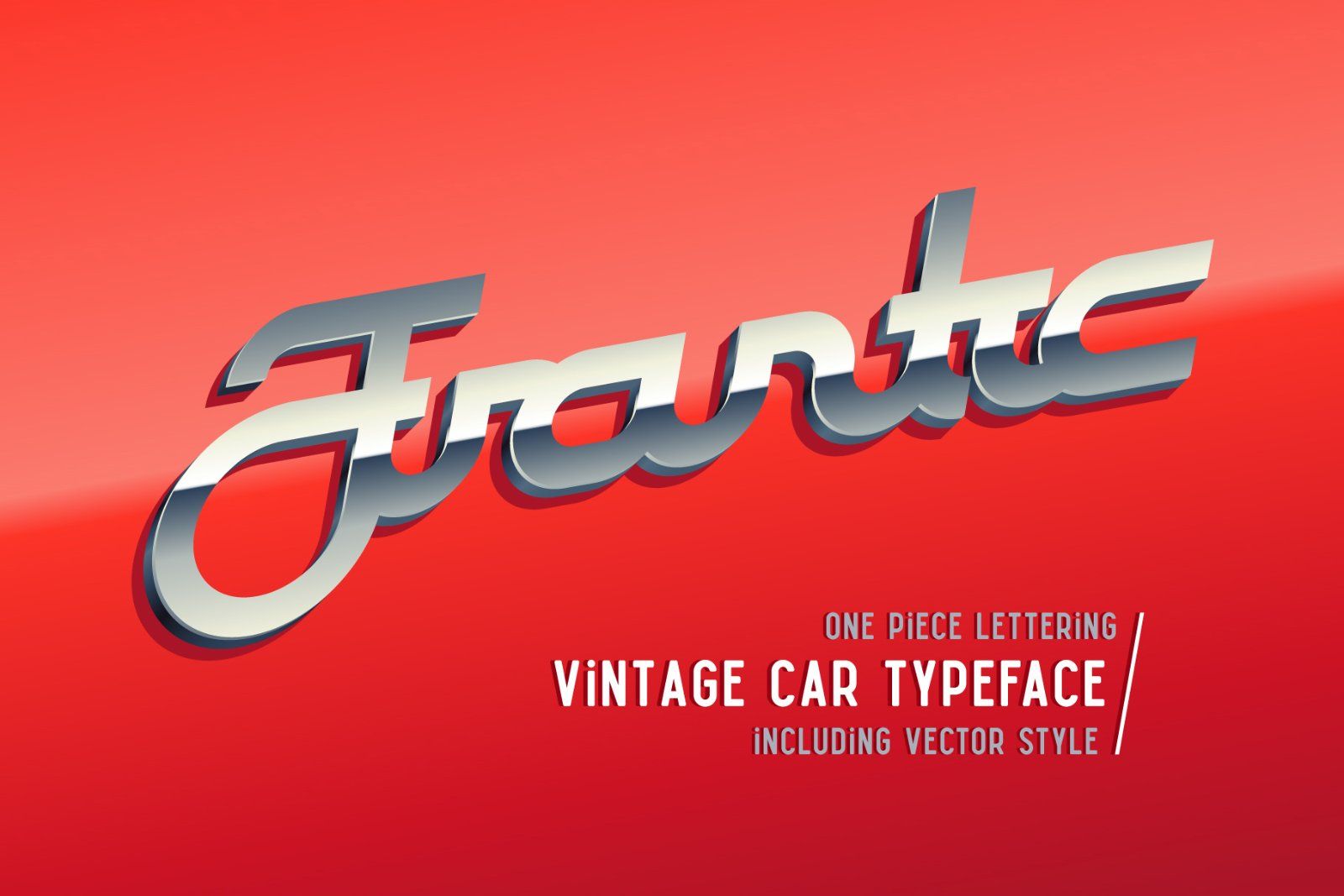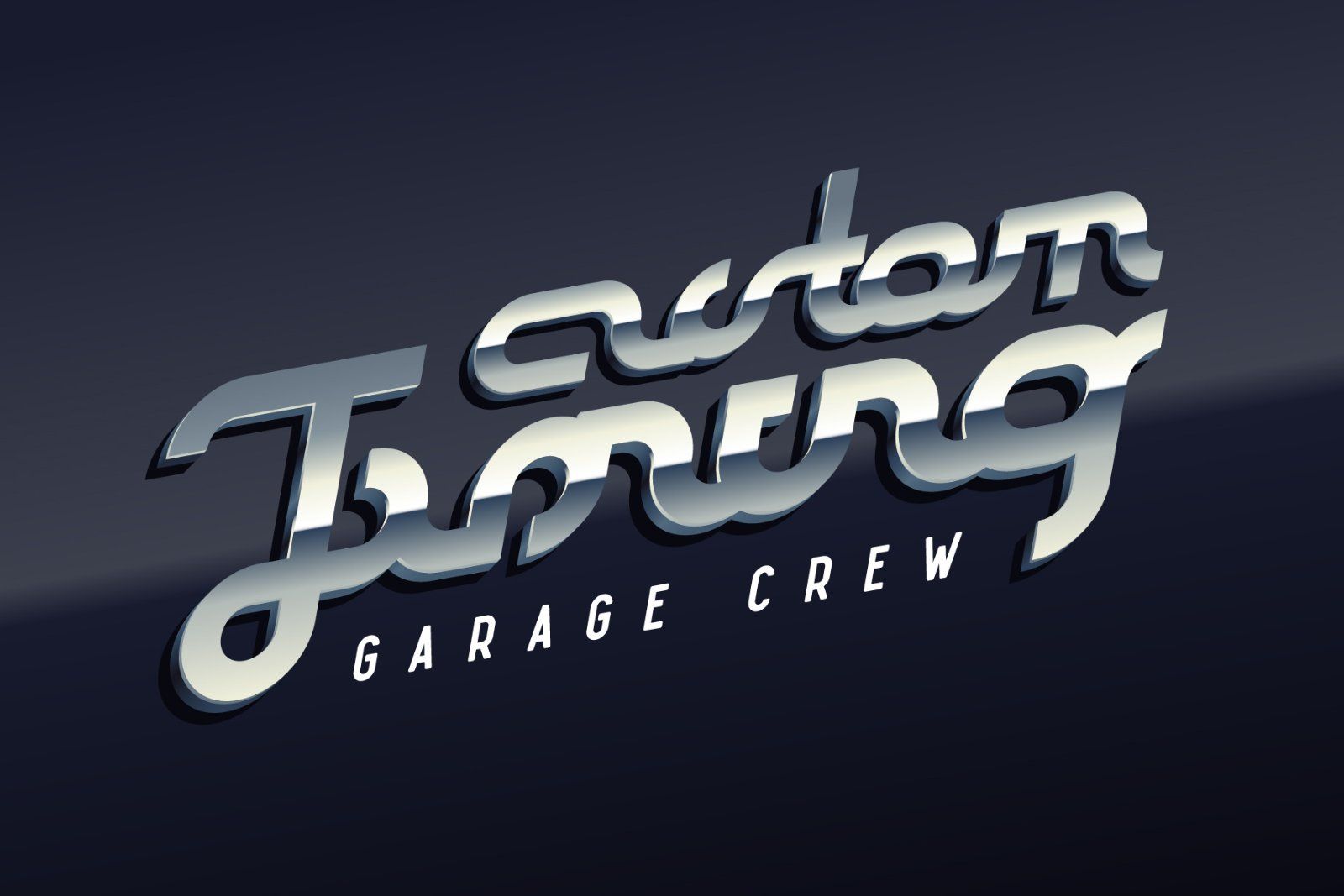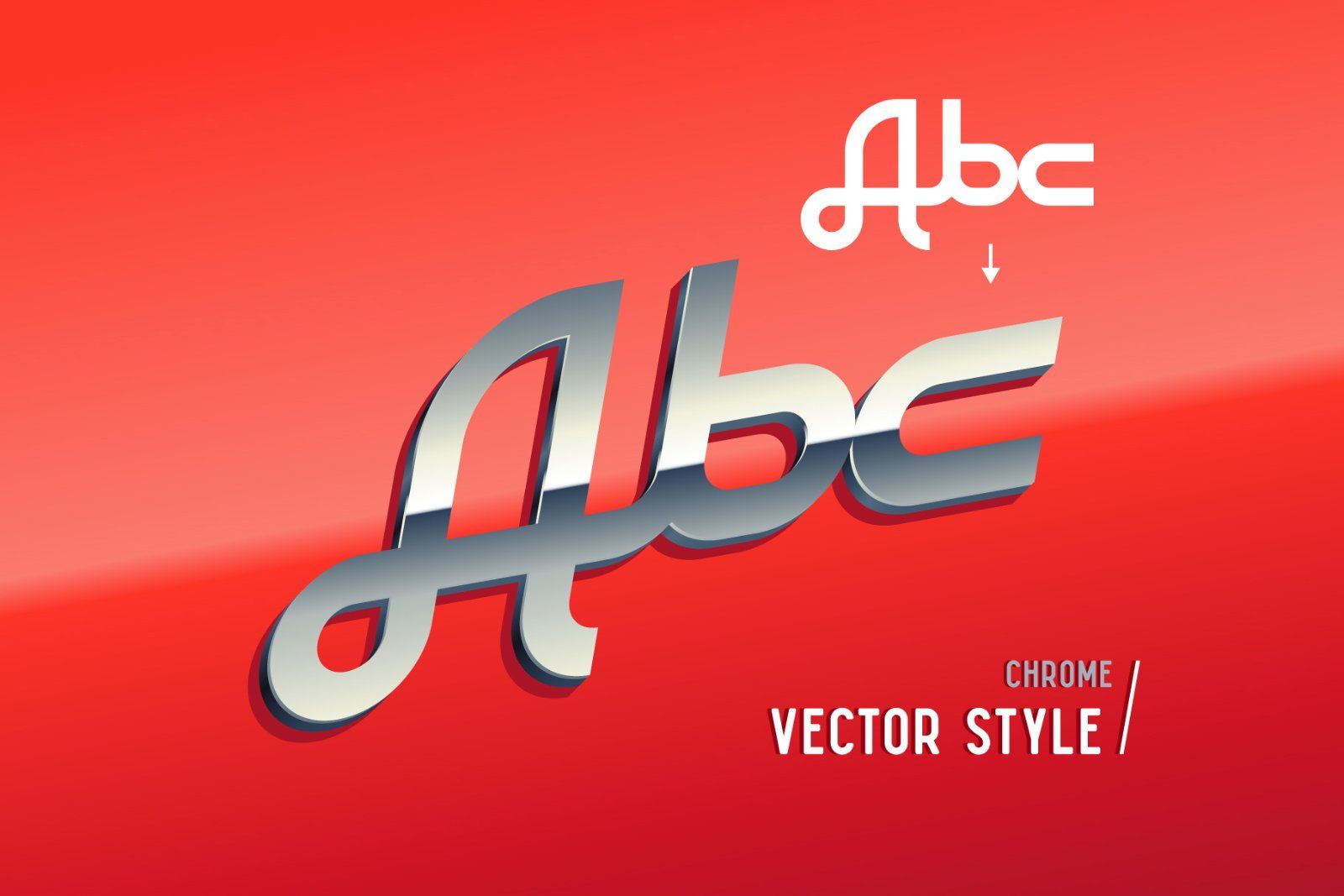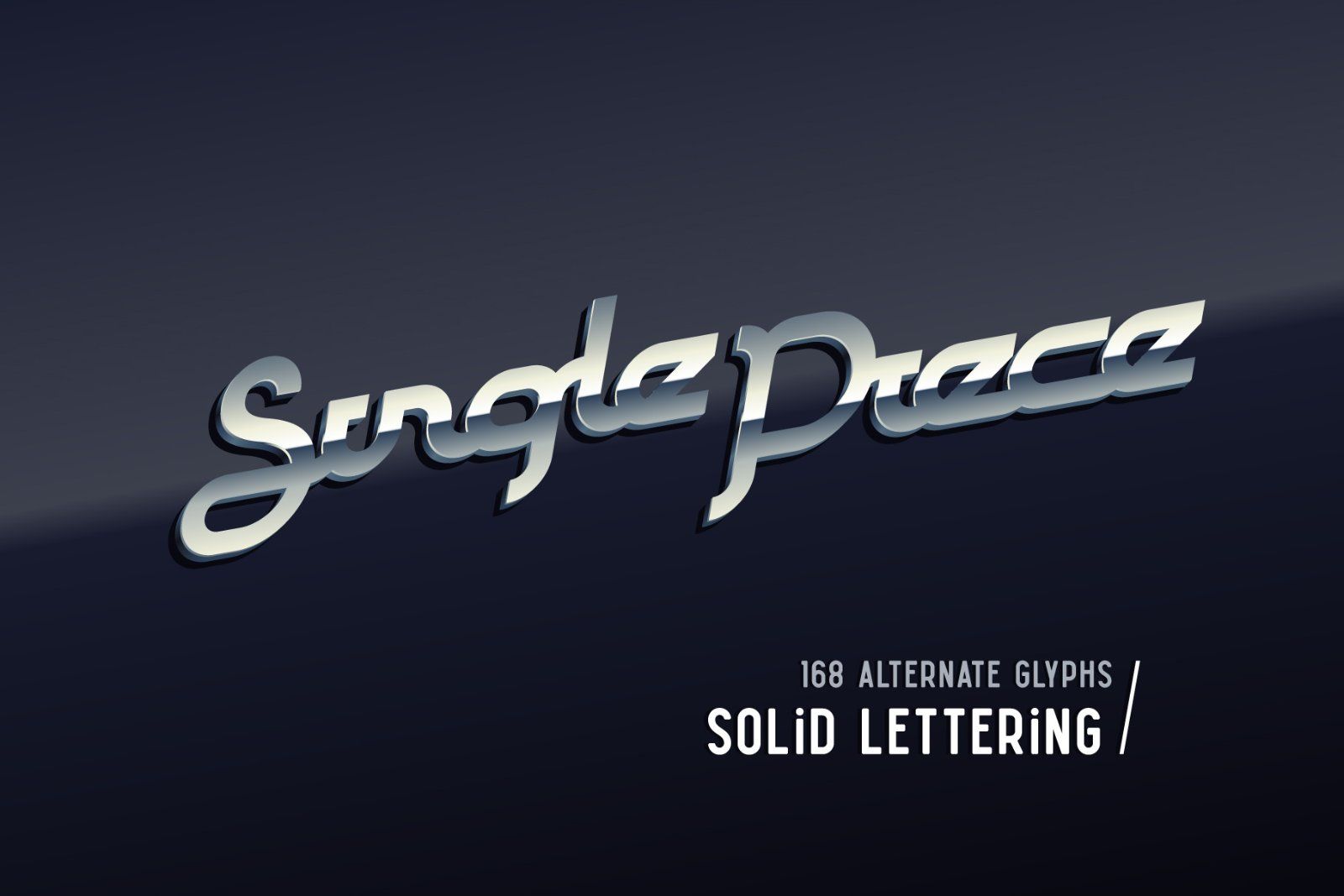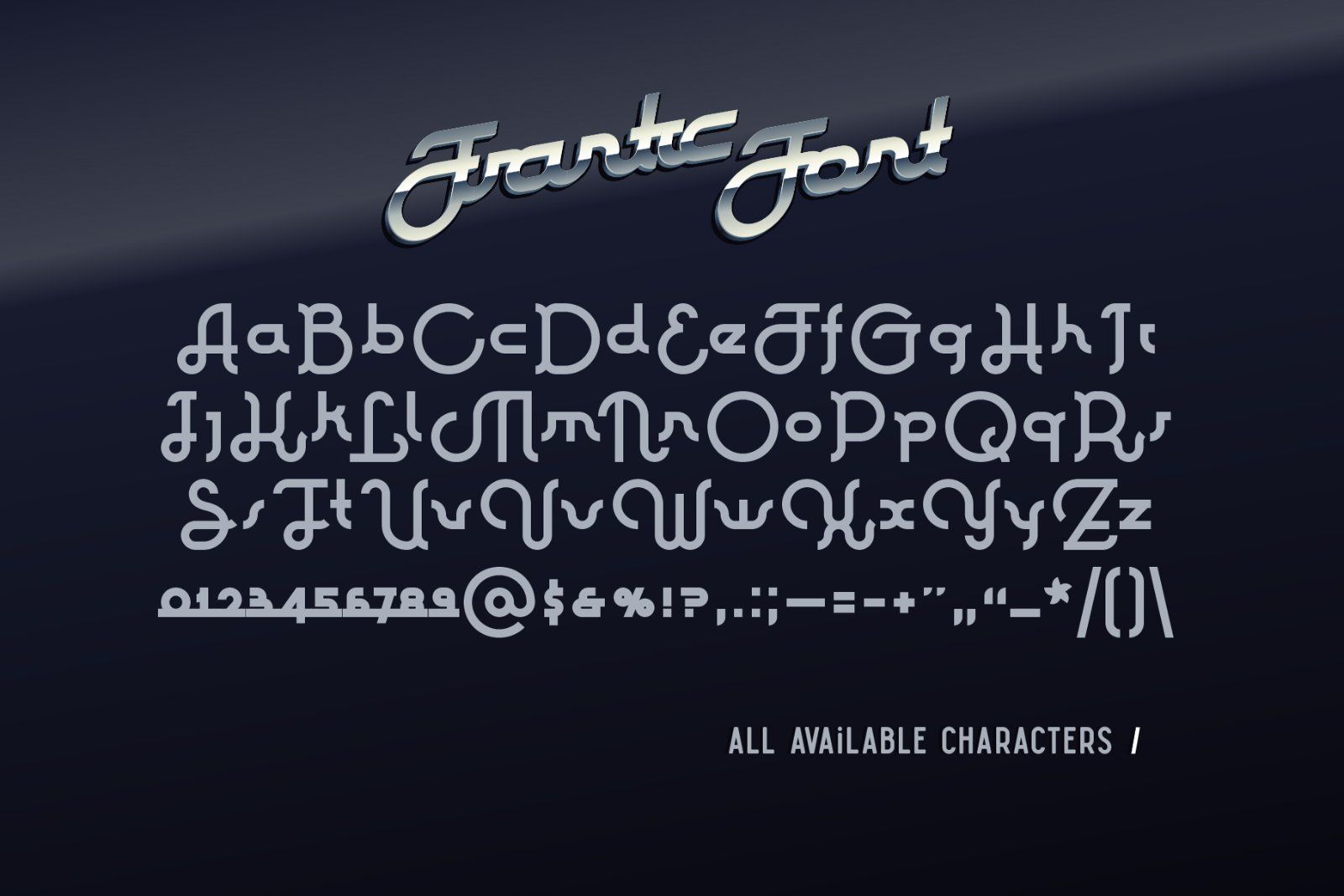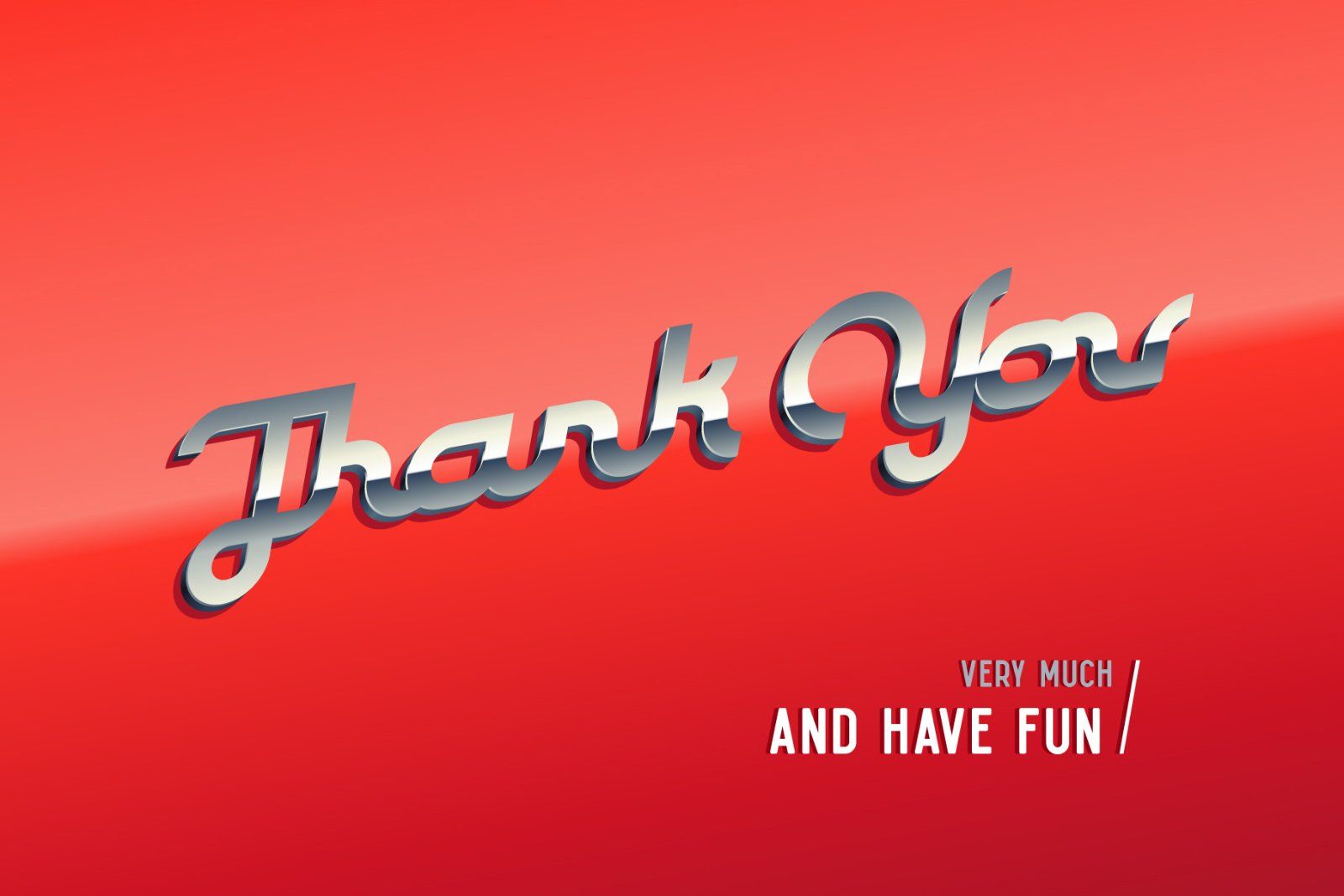
Hello! Introducing a font Frantic inspired by vintage car nameplates. Using alternate glyphs this font makes a seamless one-piece words. To achieve an authentic look you can apply to it a vector style. Ai chrome style is included to package, just open it in "Graphic Styles" panel and apply to your lettering composition. Or you can simply open one of Ai template files and drop appearance settings to your object. Compatible with Adobe CS2-CC of higher.
NOTE: One-piece words can be achieved only for small letters or with first big letter. If you're typing few big letters in a row - it will not work properly. Your software must support OpenType features to make this seamless effect.